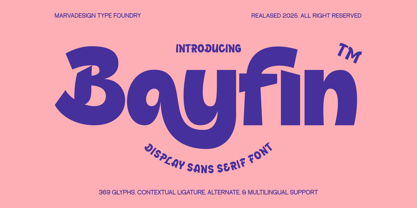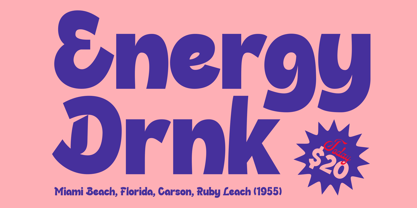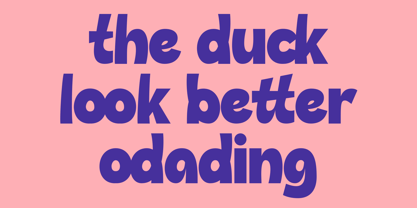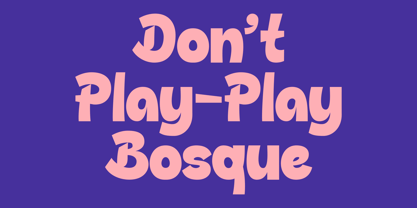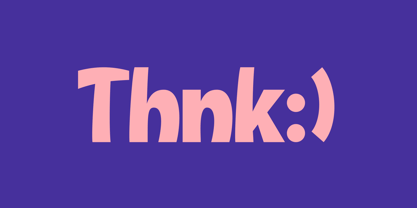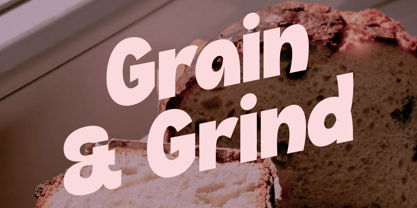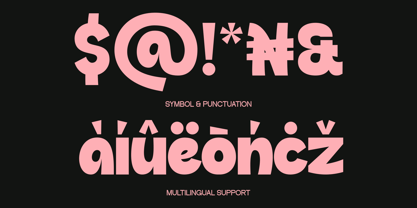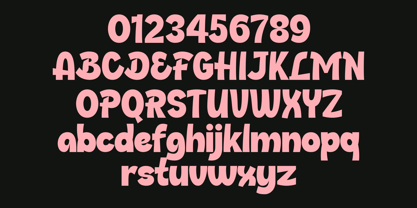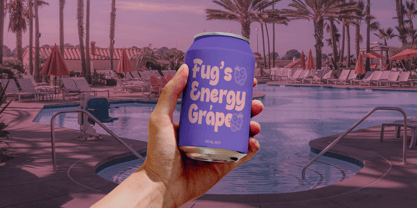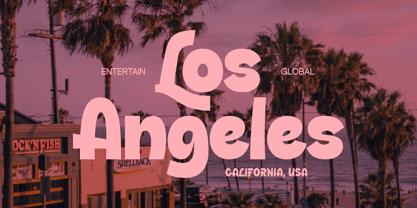
Bayfin
by Marvadesign
The Bayfin Font Family was designed by Febrie Setiawan and published by Marvadesign. Bayfin contains 1 styles. More about this family
The font Bayfin is a bold and playful display sans-serif typeface designed by Marvadesign Type Foundry, released in 2025. It features a quirky, energetic character with thick, exaggerated curves and strong geometric influence, giving it a unique and lively personality. The font includes 369 glyphs, contextual ligatures, alternates, and multilingual support, making it versatile for various creative uses. Its bold style is especially well-suited for branding, packaging, and headline designs that aim to capture attention with a fun and friendly vibe. The letterforms are rounded yet angular, balancing approachability with a sense of motion and rhythm.
Designers: Febrie Setiawan
Foundry: Marvadesign